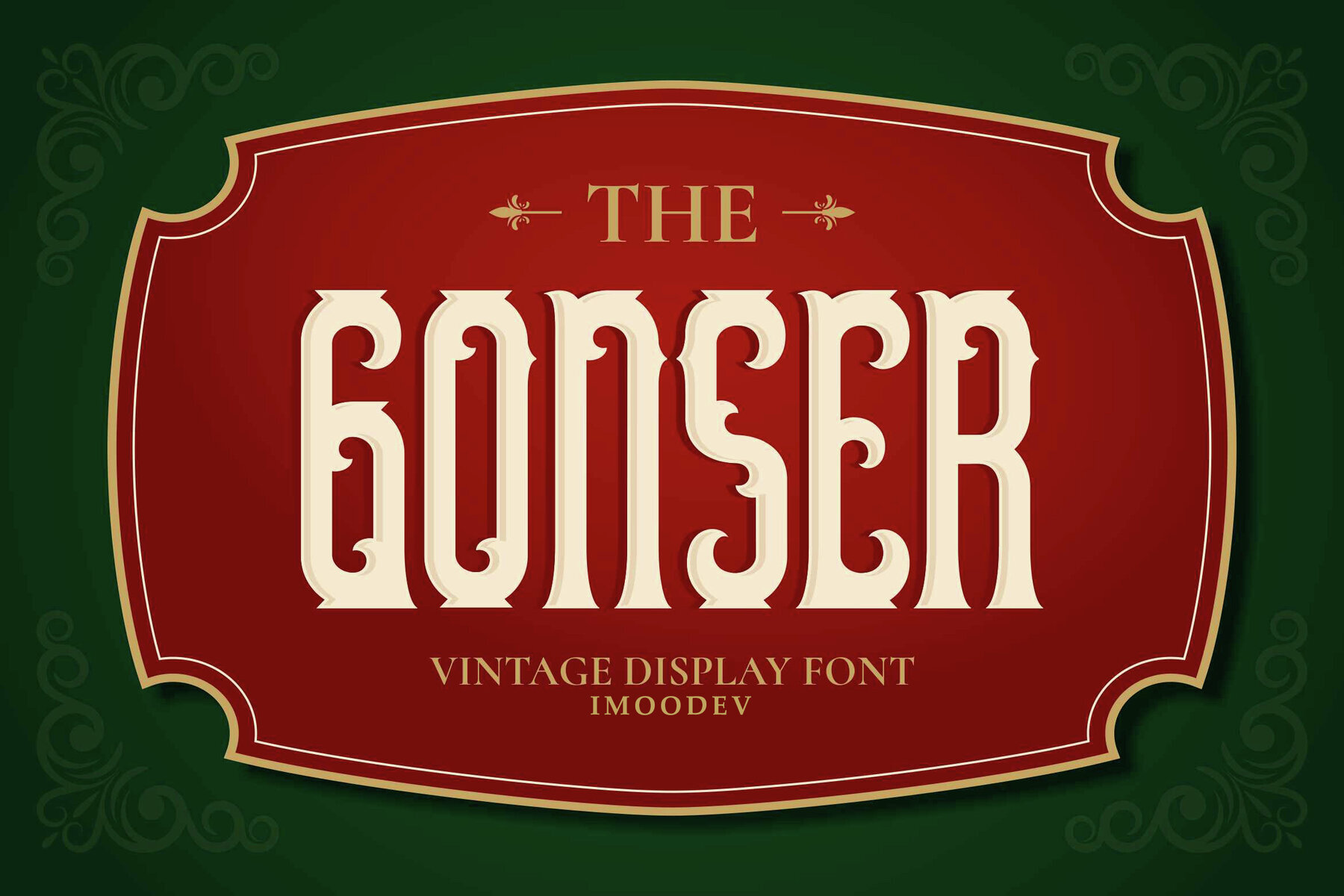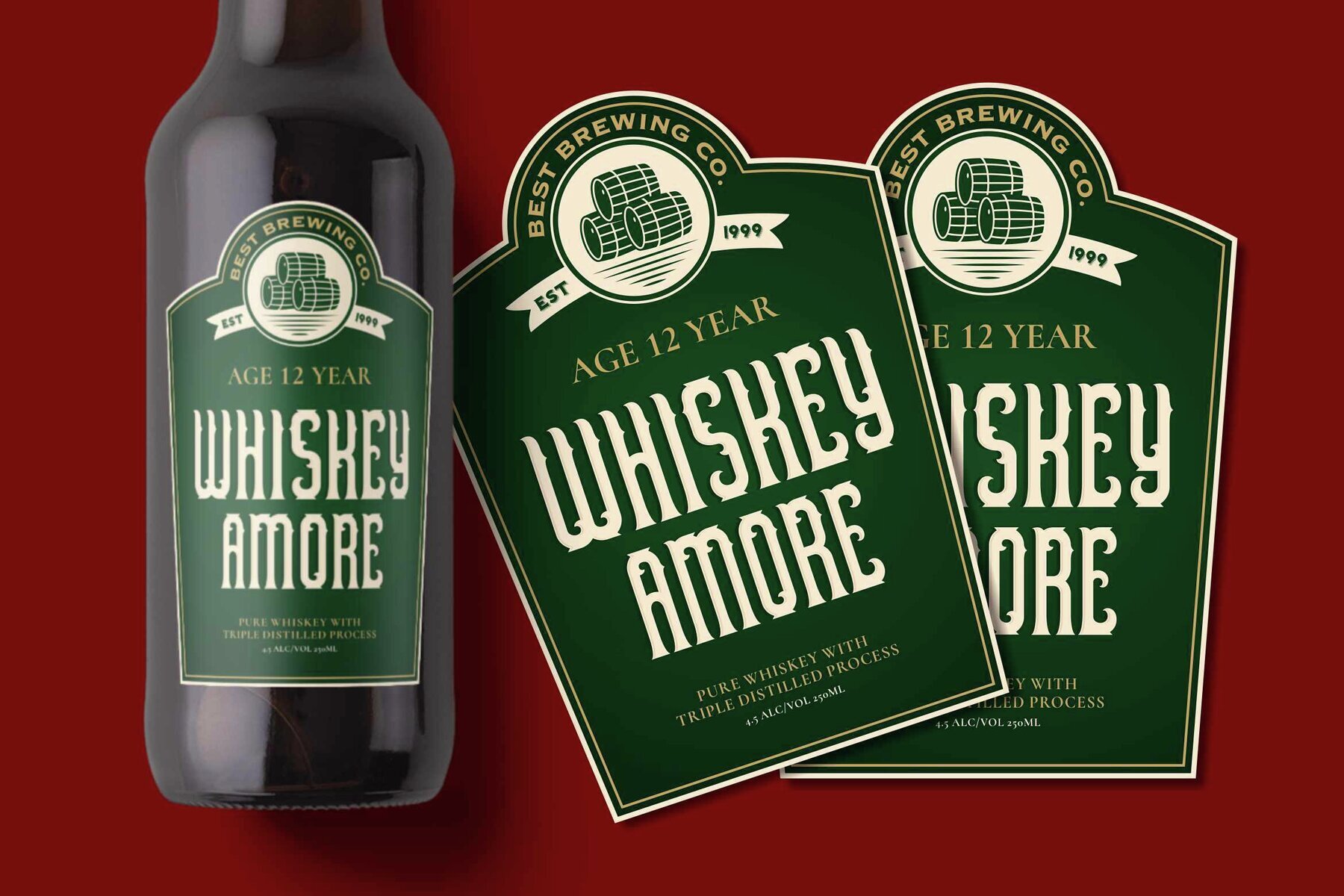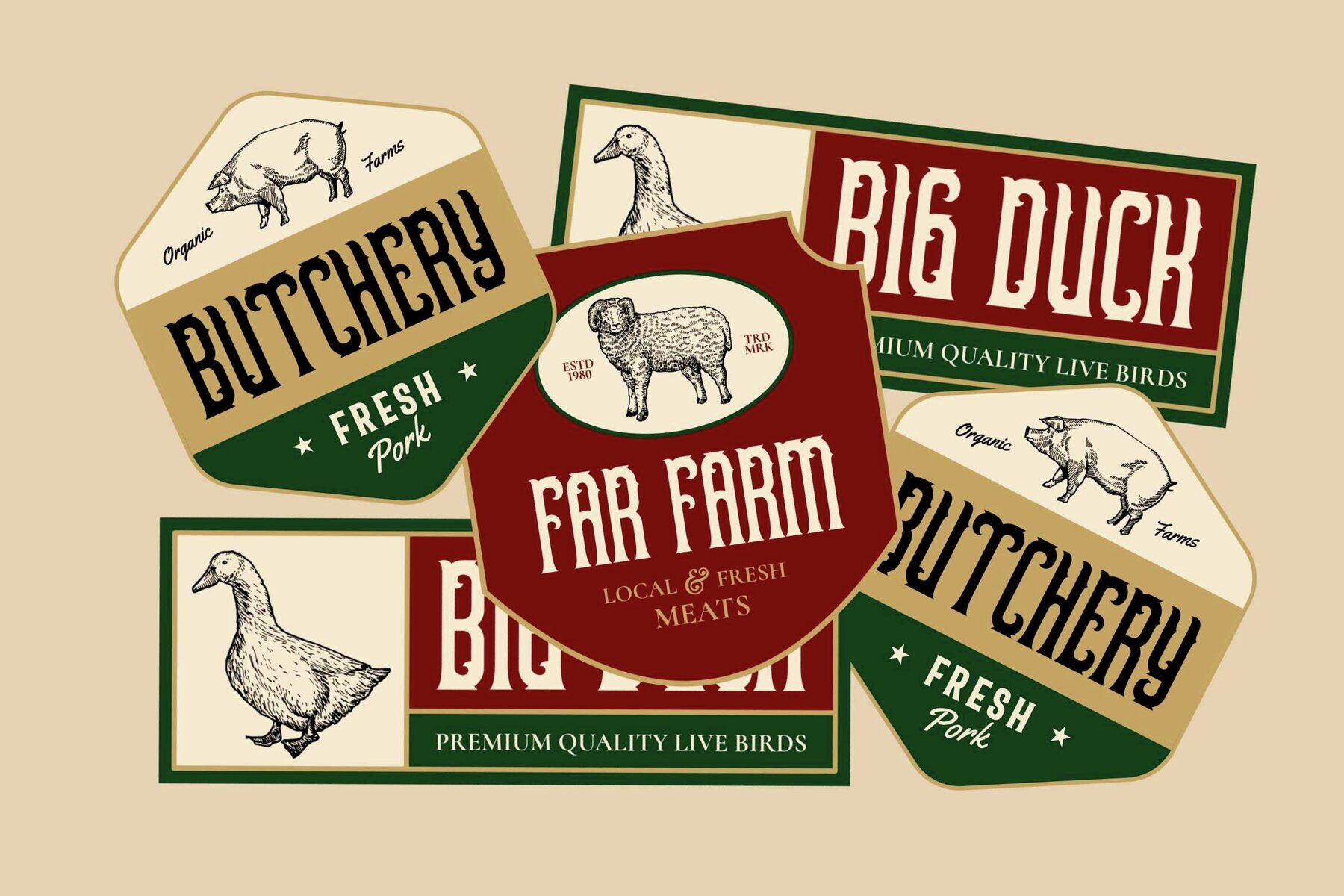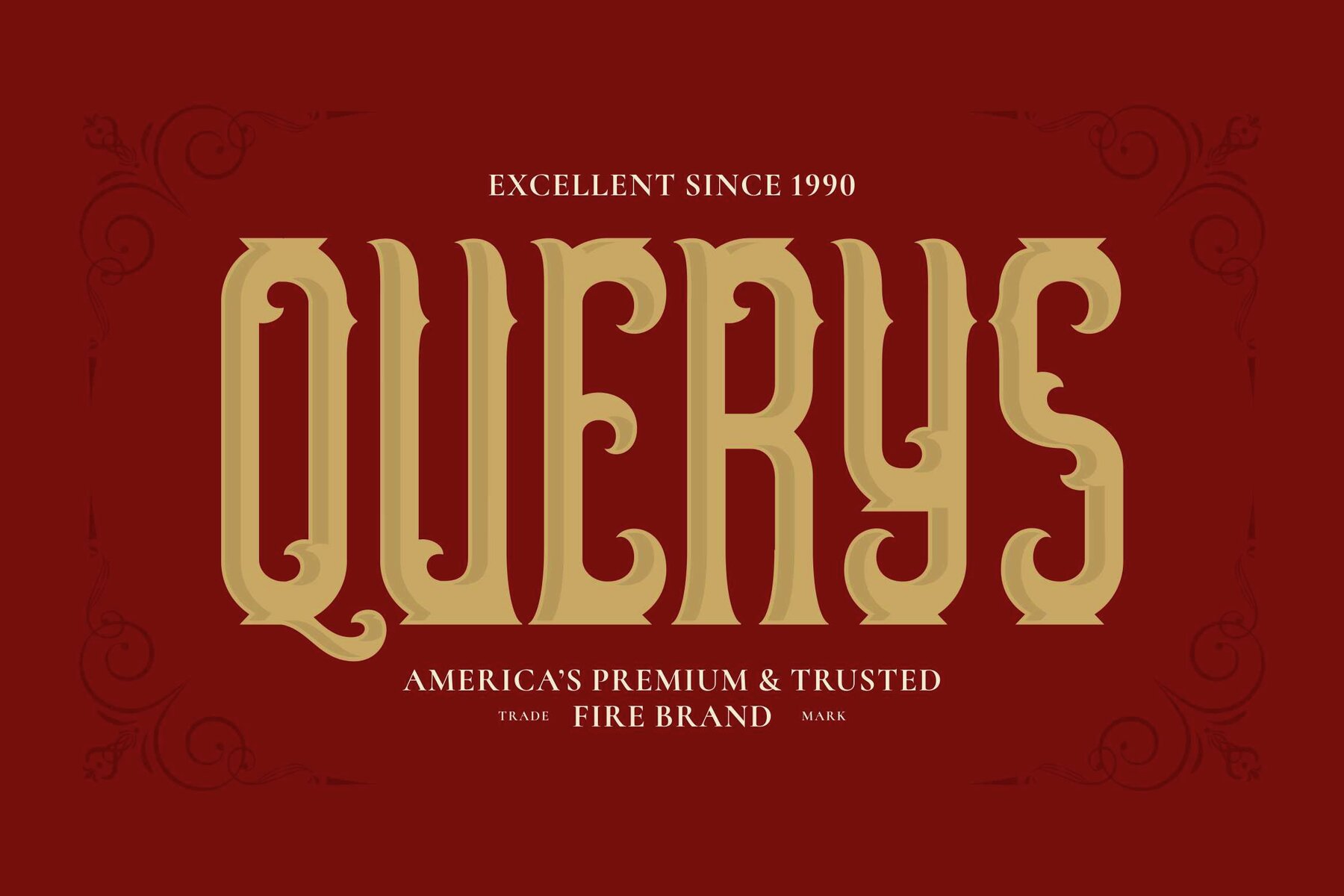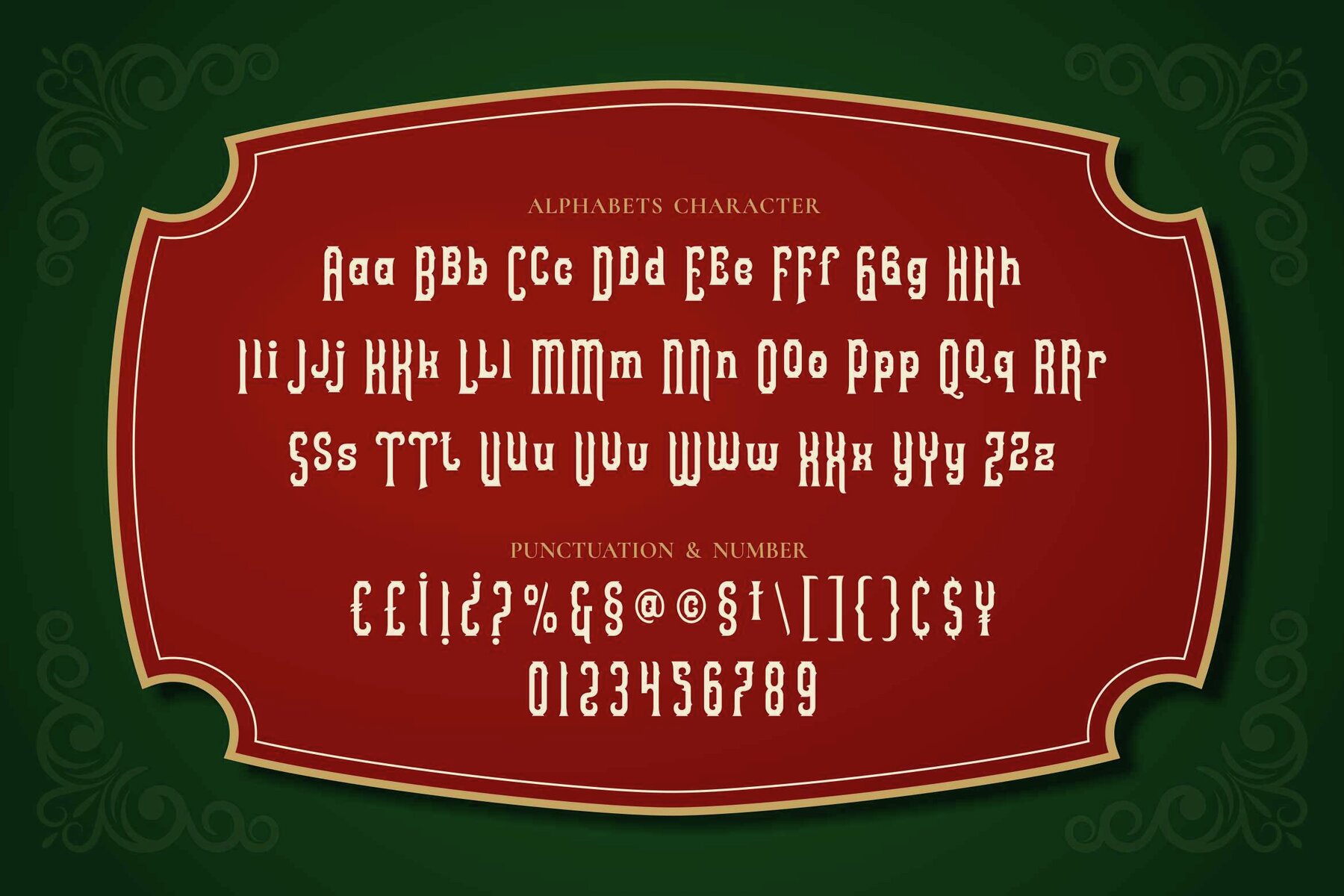
Gonser Font
Gonser Regular
Gonser stands out as a refined vintage serif typeface, designed for distinctive product labels, craft beverage branding, and retro-inspired logo work. Its tall, compact letterforms combine with bold slab serifs to create a strong visual presence—well-suited for everything from artisanal farm goods to specialty food packaging. Each letter features subtle details, such as angled terminals and unique foot shapes, offering a handcrafted character without sacrificing clarity. This typeface unites the nostalgia of classic serif styles with a modern sensibility, making it a reliable choice for projects that demand both readability and personality. Perfect for businesses and designers aiming to evoke tradition, heritage, and the tangible quality of handcrafted products, Gonser adds depth and authenticity to every application.Gonser Vintage Serif Typeface